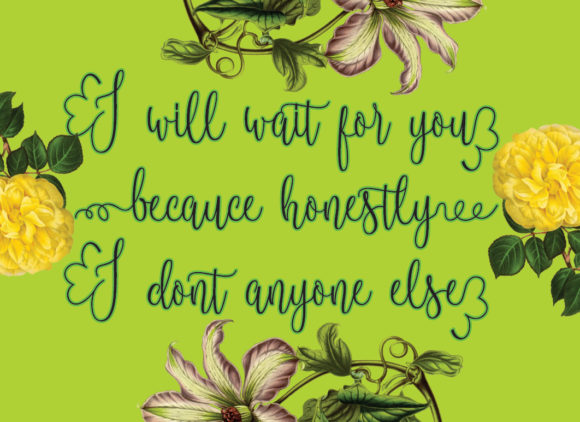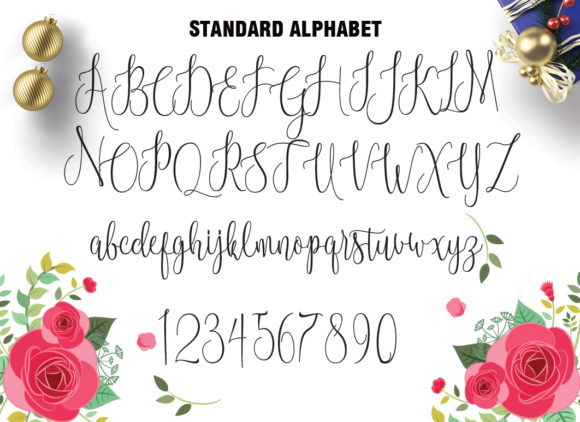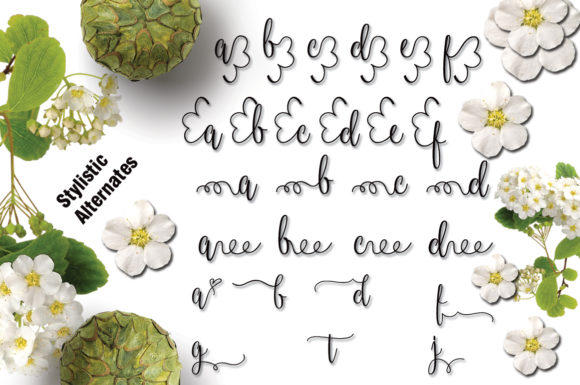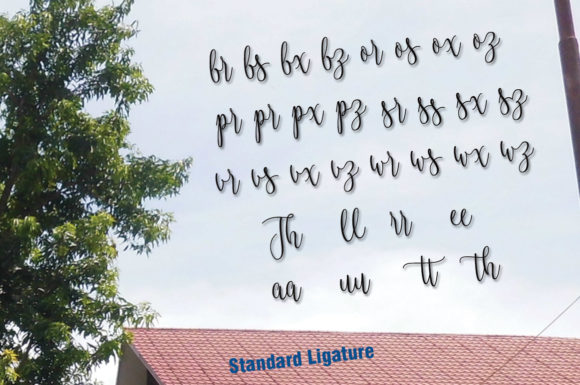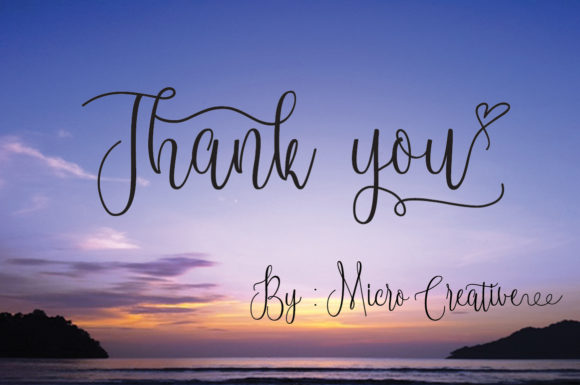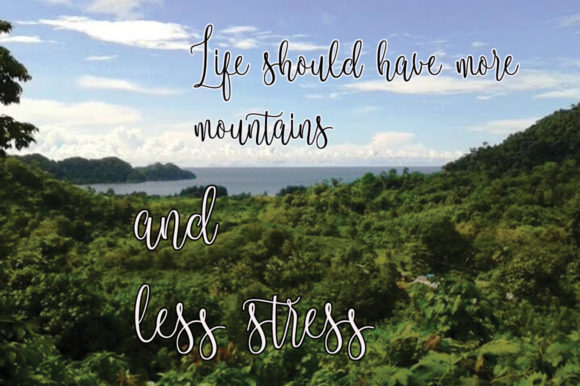
Unlock the Whimsy of Your Designs with Blastamino Font
As a designer, have you ever found yourself pouring over a blank canvas, searching for that perfect spark to bring your creative vision to life? We’ve all been there, and it’s moments like these that remind us of the importance of having the right tools at our disposal. That’s where the Blastamino Font comes in – a delightful, handwritten font that’s sure to add a touch of whimsy and romance to any design project.
With its bold, flowery feel, the Blastamino Font is the perfect choice for designers looking to add a unique charm to their work. Whether you’re crafting a wedding invitation, a birthday card, or a social media graphic, this font is sure to leave a lasting impression. Its versatility and playfulness make it an invaluable asset for any designer looking to add a little extra magic to their designs.
Blastamino Font Key Features
- Unique Characteristic: Blastamino Font features a unique blend of modern and geometric elements, making it perfect for creating eye-catching designs.
Blastamino Font Review
I recently had the chance to work with the Blastamino Font, and I’m excited to share my honest review with you. Here’s what I think:
- ✨ Unique and modern design: The Blastamino Font has a distinctive style that’s perfect for creating eye-catching headlines and titles.
- ✨ Versatility: This font can be used for a wide range of projects, from digital displays to print materials, and it looks great in both.
- ✨ Easy to read: The Blastamino Font is well-designed for readability, making it perfect for body text as well as headlines.
- ⚠️ Limited character set: The Blastamino Font only comes with a limited set of characters, which may not be suitable for projects that require a wide range of languages or special characters.
- ⚠️ Not ideal for small text: While the font looks great at larger sizes, it can become difficult to read at smaller sizes, making it less suitable for body text in smaller contexts.
The Blastamino Font is a great choice for designers looking for a modern and eye-catching font. While it has some limitations, its unique design and versatility make it a great addition to any design project. I would definitely recommend it for projects that require a bold and attention-grabbing font, but it may not be the best choice for projects that require a wide range of languages or small text.
Blastamino Font is perfect for:
- Creativity and artistic projects
- Presentations and documents
- Graphics and design elements